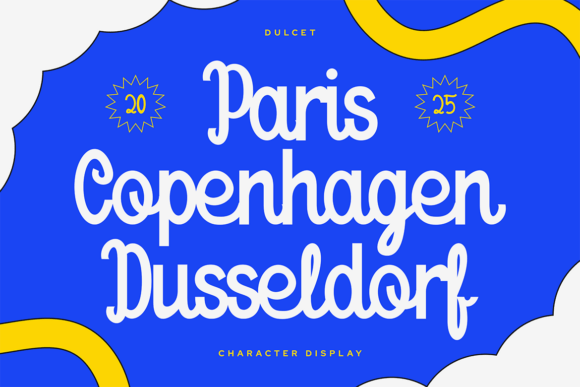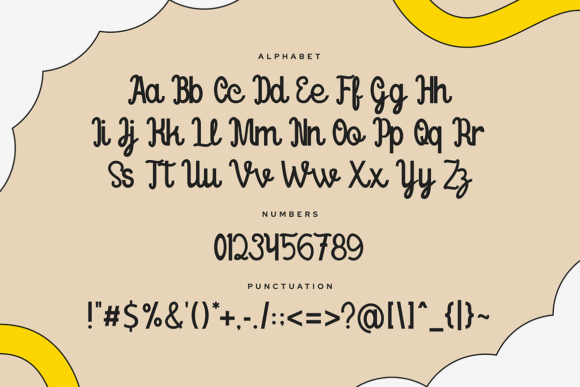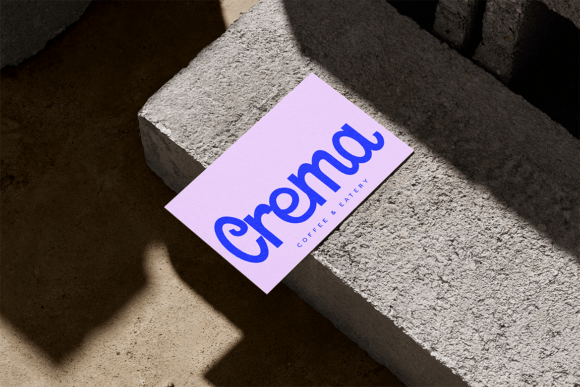
Introduction to Dulcet Font
Immerse yourself in the classic charm of **Dulcet Script**, a truly unique font that effortlessly embodies retro chic with a modern script twist.
Crafted with an attention to detail, it provides an ease that allows for simple text and color edits Known for its high-quality render, it enraptures with its flawless finish.